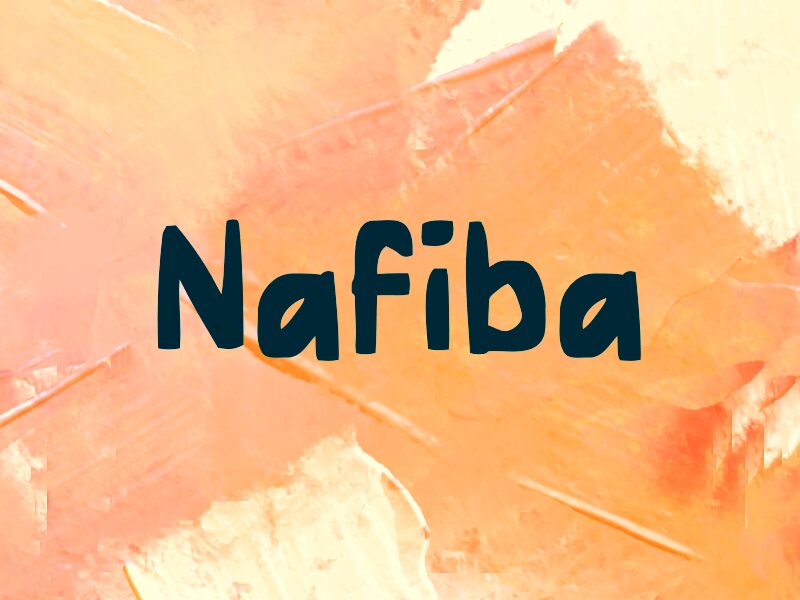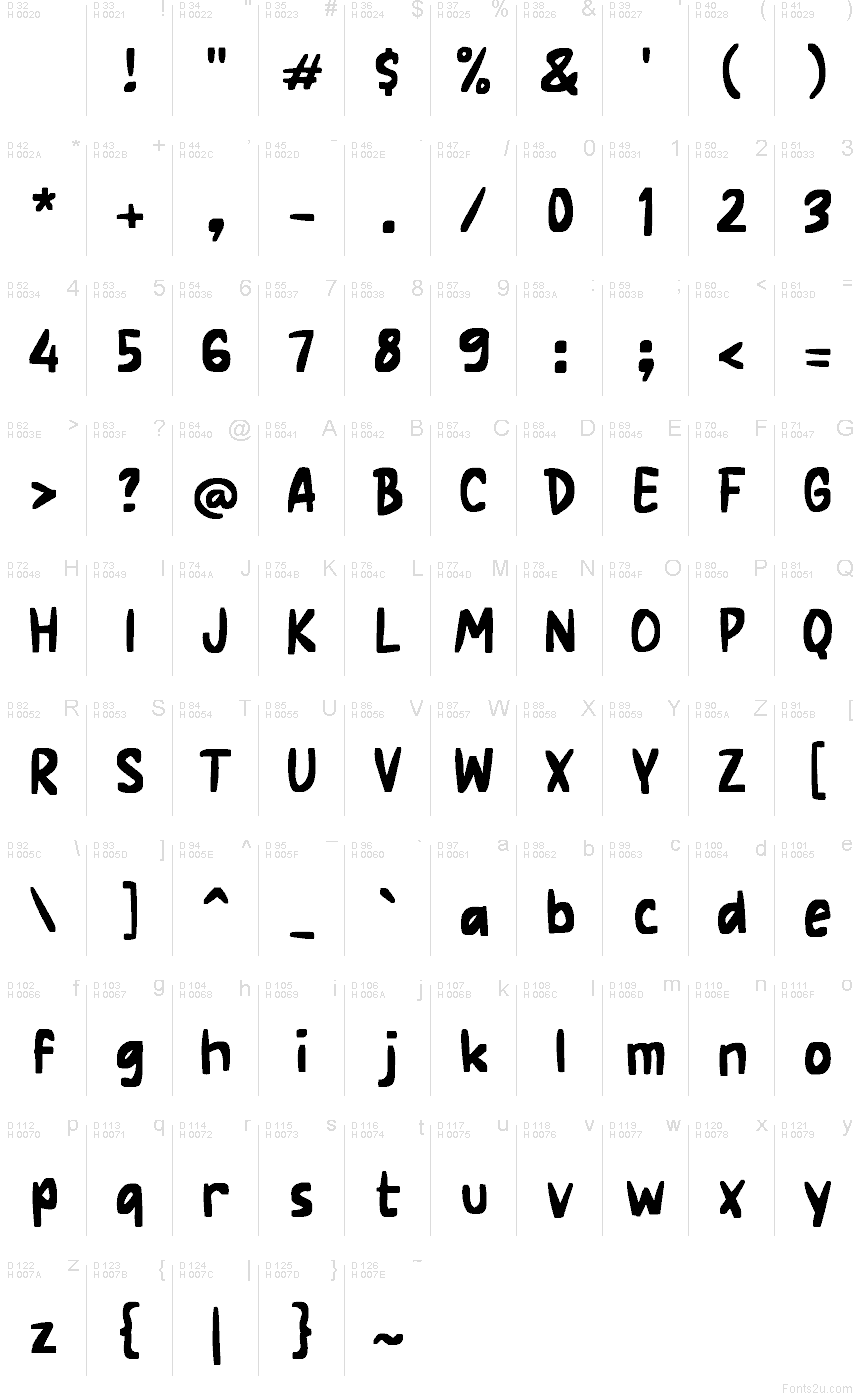
Nafiba
Nafiba font by wep is a free comic display typeface with a bold, inky swagger that feels straight out of a hand-lettered zine. Its chunky strokes, soft corners, and slightly wobbly rhythm give each word a friendly, human warmth—like thick marker lines soaking into paper. Letters sit close and confident, creating dense, punchy word shapes that grab attention without feeling shouty or forced.
Using Nafiba, you can give instant personality to comic panels, kids’ book titles, playful logos, event posters, stickers, and social graphics. This free font shines when used big, where its blobby curves and irregular silhouettes have room to breathe. Pair Nafiba with a clean, neutral sans serif in small text to keep layouts readable while letting the comic letterforms carry the fun.